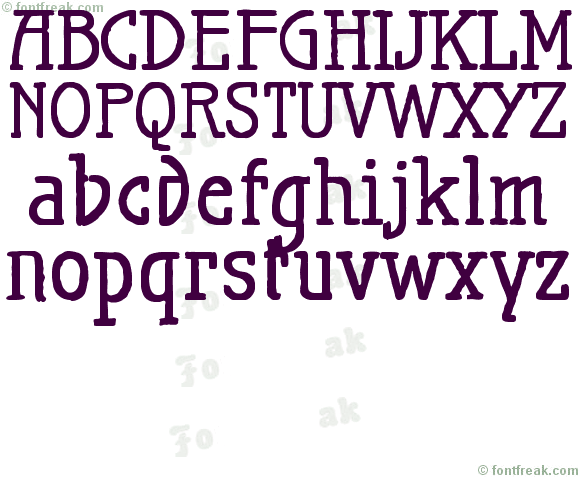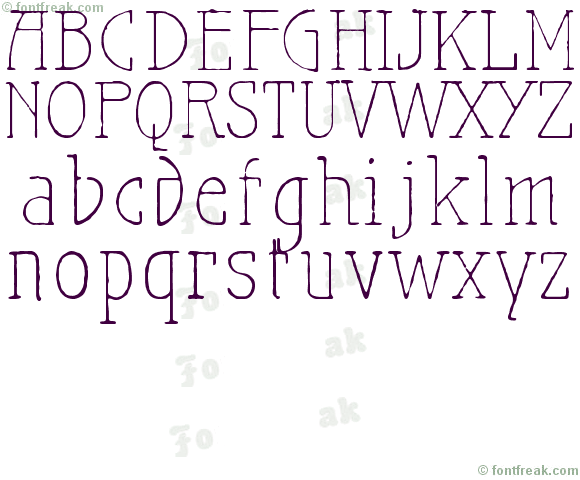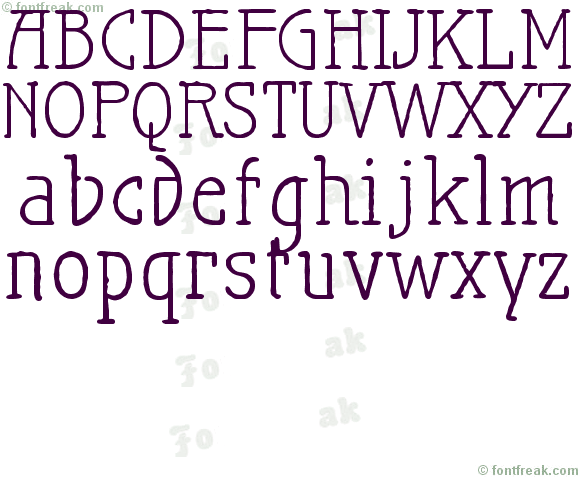
MaiersNr.21Pro
MaiersNr.21Pro-Light
MaiersNr.21Pro-Bold
The MaiersNr.21Pro font, designed by Ingo Zimmermann, is a unique display font that captures a sense of handcrafted charm. This typeface features a slightly irregular stroke weight, giving it a playful, organic quality that stands out in various design contexts. The font exhibits moderate contrast, making it legible while still maintaining its artistic flair. The spacing is well-balanced, allowing for easy reading, while its decorative elements evoke a sense of warmth and personality.
Ideal for creative projects, the MaiersNr.21Pro font is particularly well-suited for wedding invitations, where its whimsical character can convey romance and elegance. Additionally, it shines in restaurant menus, offering a touch of uniqueness that can enhance the dining experience. Movie posters can also benefit from this font, as its distinctive style can capture attention and convey thematic elements effectively. Graphic designers and content creators will find this font versatile, allowing for innovative branding and marketing materials that require a distinctive touch.
What sets the MaiersNr.21Pro apart is its blend of charm and versatility. This font not only offers a unique aesthetic but also effectively communicates a sense of authenticity. Whether you’re working on personal projects or professional designs, the MaiersNr.21Pro font free download provides an opportunity to incorporate a distinctive typeface that resonates with viewers and enhances your creative output.